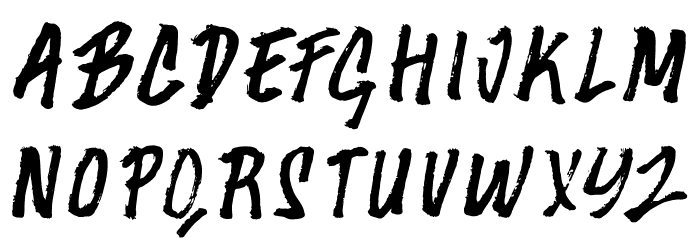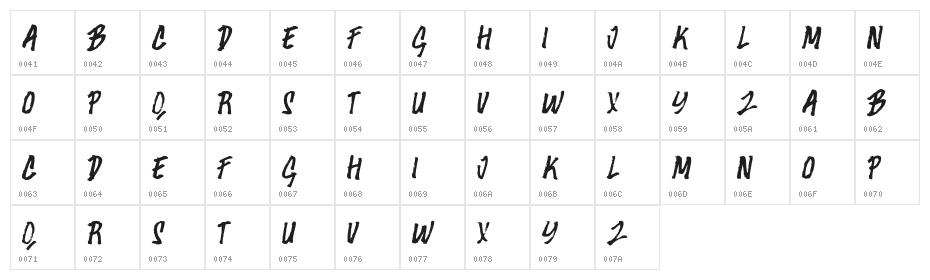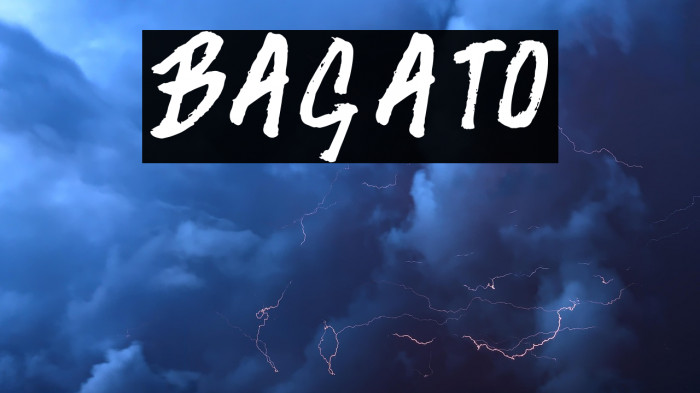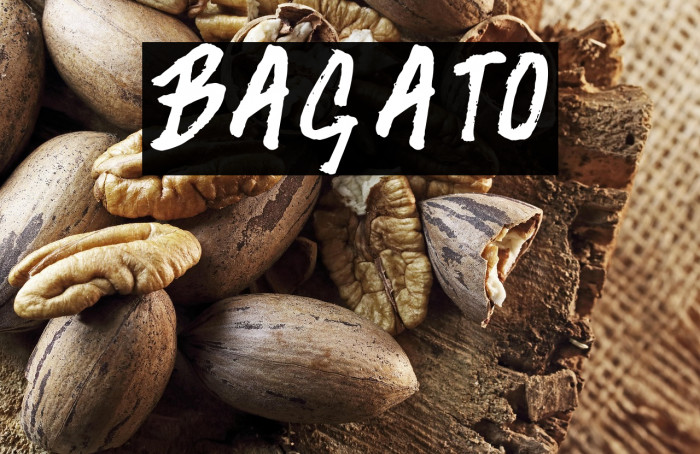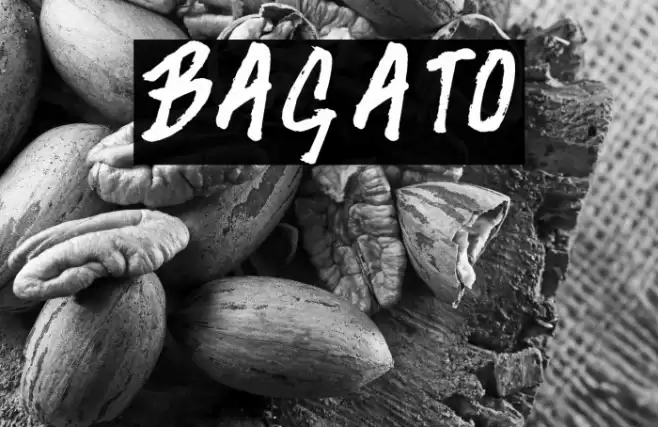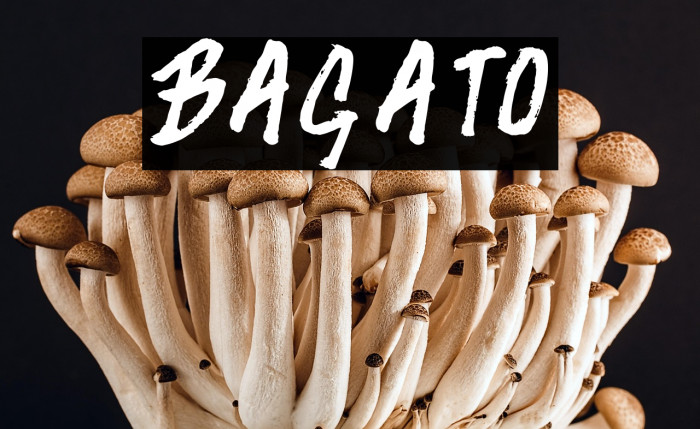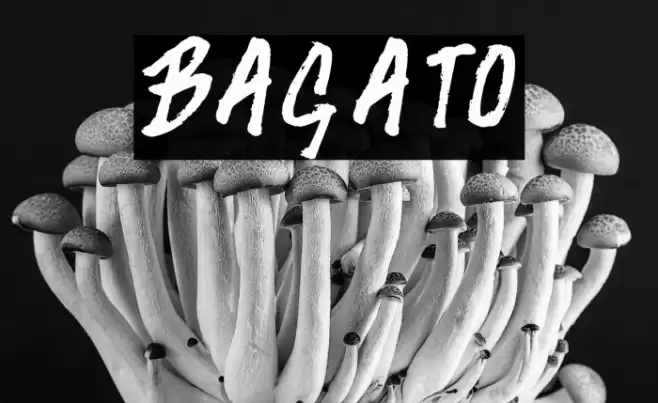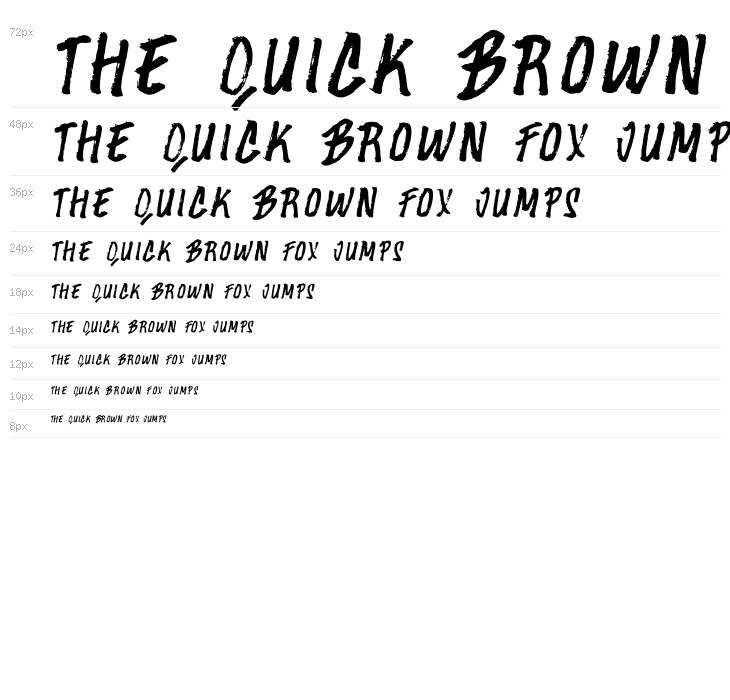
Bagato Font
Bagato Description
This font features a bold, brush-like script style that exudes energy and dynamism. The strokes are thick and textured, giving it a hand-painted appearance. Each character is distinct, with a slightly irregular form that adds to its handcrafted feel. The uppercase letters are particularly striking, with dramatic flourishes and a sense of movement. The lowercase letters maintain the same boldness, ensuring consistency across text. This font is designed to capture attention and convey a sense of creativity and spontaneity.
| Proposed Projects | Ideal for branding projects, poster designs, and creative advertising where a bold and artistic statement is needed. |